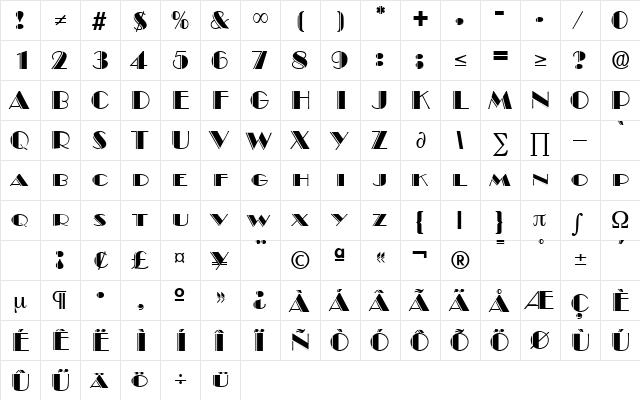
BroadwayDeko DB Medium Font Preview
BroadwayDeko DB Medium
Design Context for BroadwayDeko DB Typeface
BroadwayDeko DB is a composed and adaptable typeface that performs quietly and consistently across a wide range of design contexts.